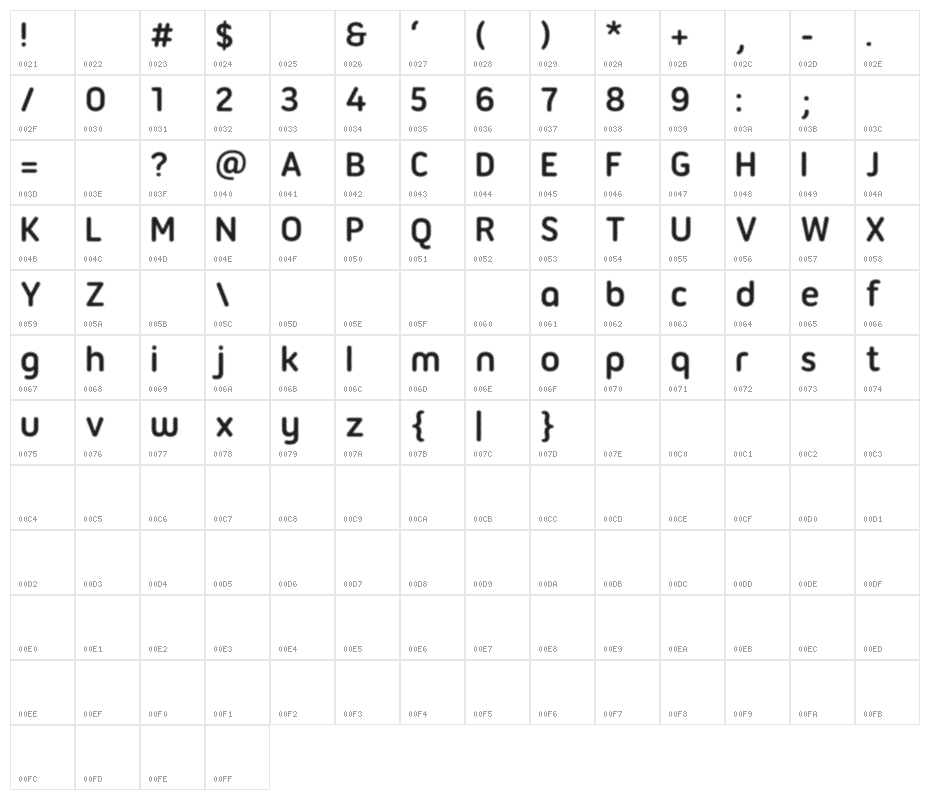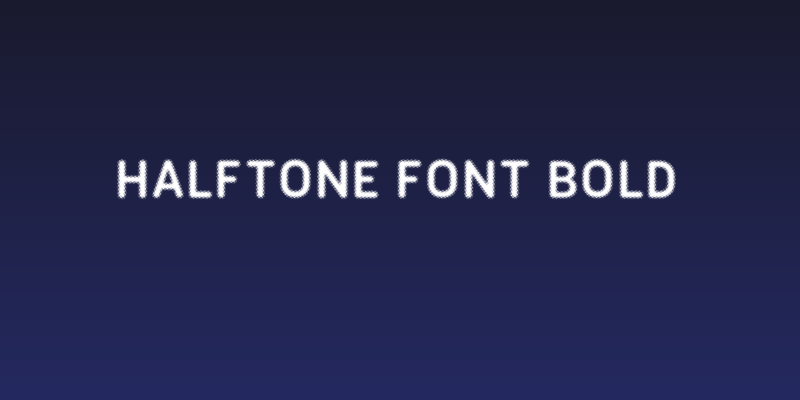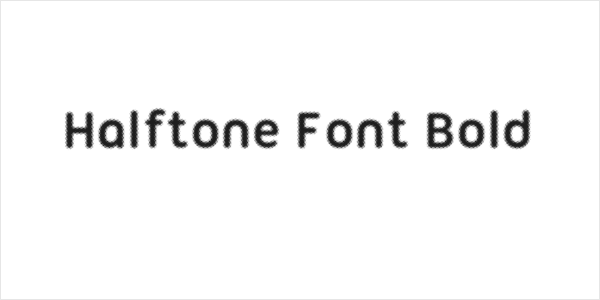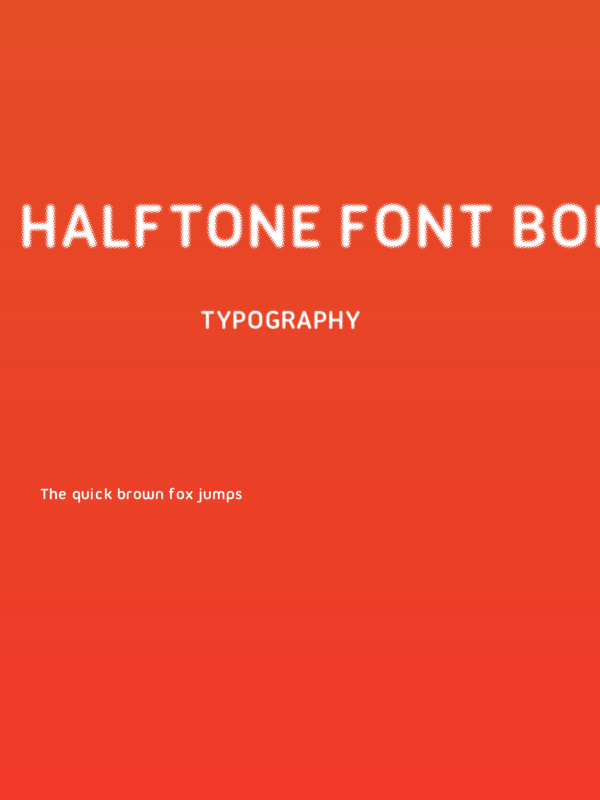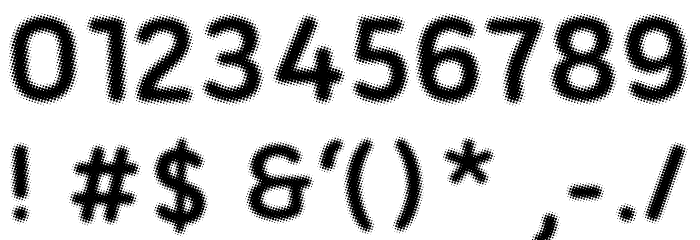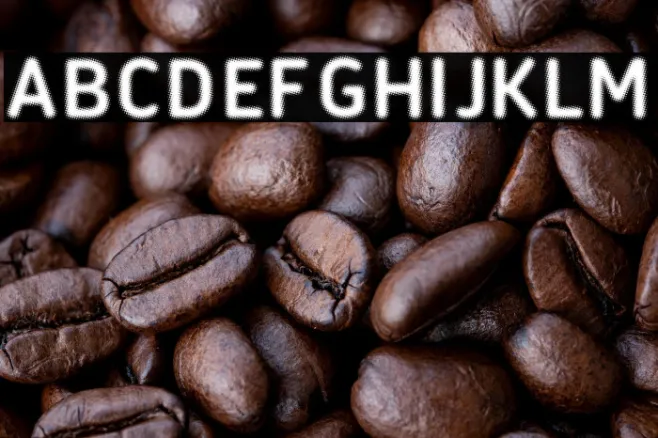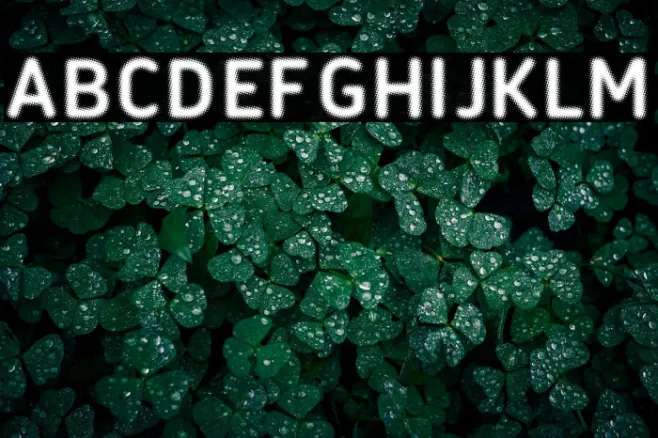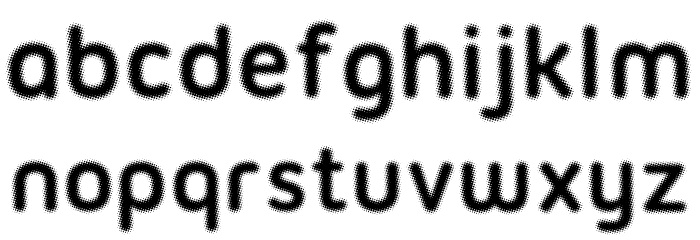
Halftone Font Bold Font
Halftone Font Bold Description
This font features a bold, rounded style with a unique halftone texture that gives it a distinctive, retro appearance. The characters are evenly spaced, maintaining a consistent and clean look. The uppercase and lowercase letters are well-proportioned, and the numerals are clear and legible. The special characters are designed to match the overall aesthetic, making this font versatile for various design needs. Its boldness and texture make it stand out, ideal for projects that require a touch of vintage flair.
| Overall Style | Retro |
| Proposed Projects | Ideal for vintage-themed posters, retro branding, eye-catching headlines, and creative graphic design projects. |